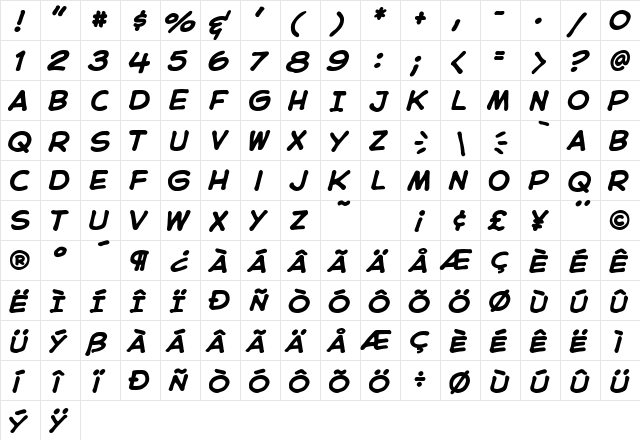
CC Astro City Int Bold Italic
Design Context for CC Astro City Int Typeface
CC Astro City Int is a composed and adaptable typeface that performs quietly and consistently across a wide range of design contexts. The slanted form adds forward momentum and visual energy. Its bold stroke weight gives it real presence on the page.